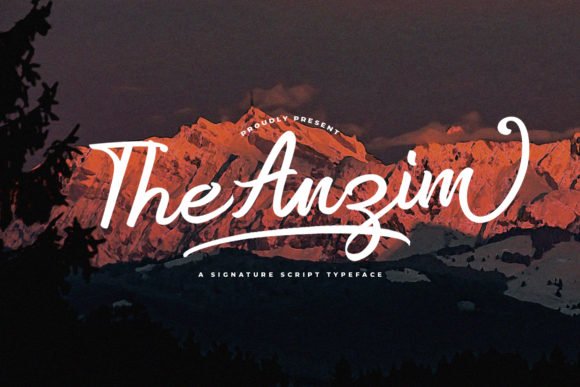
Introduction to Anzim Font
Anzim is a delicate and beautifully designed handwritten font.
Its elegant and well-rounded letters make this font a masterpiece Fall in love with its distinct style and use it to create spectacular designs such as logos, promotional material, deadlines and so much more.
Key Features of Anzim Font
Why Choose Anzim Font?
Anzim Font offers exceptional quality and versatility, making it a valuable addition to your design toolkit. Whether you’re creating for personal projects or commercial use, Anzim Font delivers professional results.